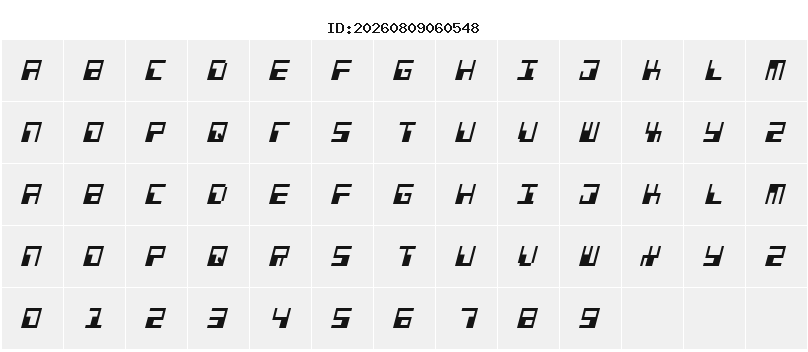
Phaser Bank Condensed Italic Preview
• Font Name: Phaser Bank Condensed Italic
• Font Style: Condensed Italic
• Full Font Name: Phaser Bank Condensed Italic
About Phaser Bank Condensed Italic.ttf
Phaser Bank Condensed Italic.ttf is a modern, elegant sans-serif font designed for ultimate readability and visual harmony. Perfect for branding, headlines, web design, and print materials.